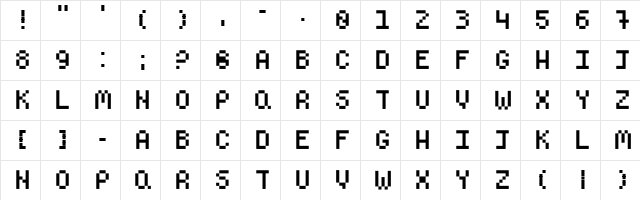
Class of '74 Normal
Design Context for Class of '74 Typeface
Class of '74 is a composed and adaptable typeface that performs quietly and consistently across a wide range of design contexts.